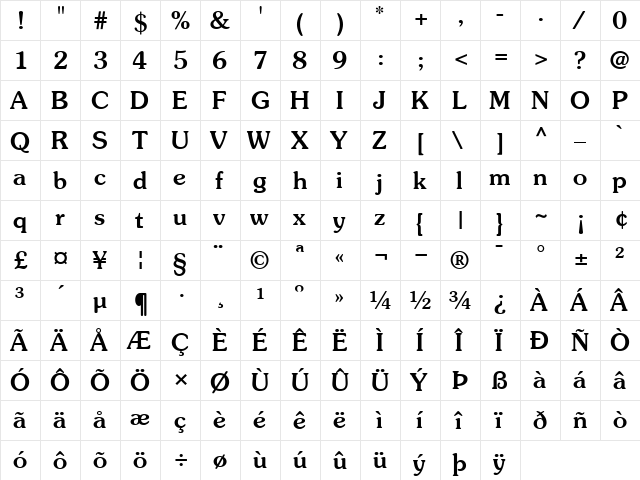
ITCSouvenir-Medium Medium
Design Context for ITCSouvenir-Medium Typeface
ITCSouvenir-Medium is a composed and adaptable typeface that performs quietly and consistently across a wide range of design contexts.